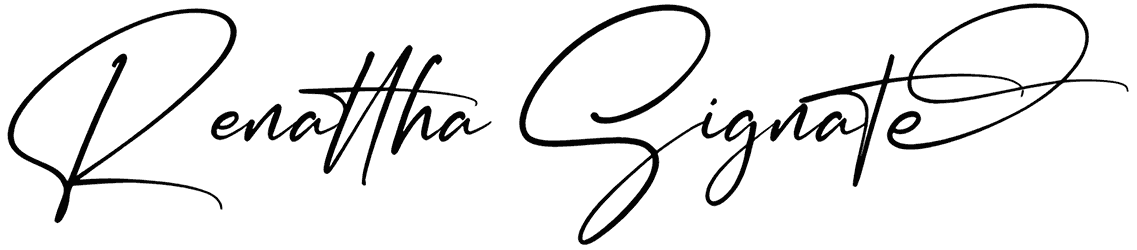
Renattha Signate Font
Ranattha Signate evokes a casual feel with the personality of modern brands active in stationery, children’s wear, and fashion. This script font is perfect for people looking for a highly personalized design who want to look different.
On the other hand, it can target emotions and penetrate deep into the audience’s heart. By placing two styles of this business card font, you can establish a good relationship and keep people focused on your writing for a while because of its unreadability.